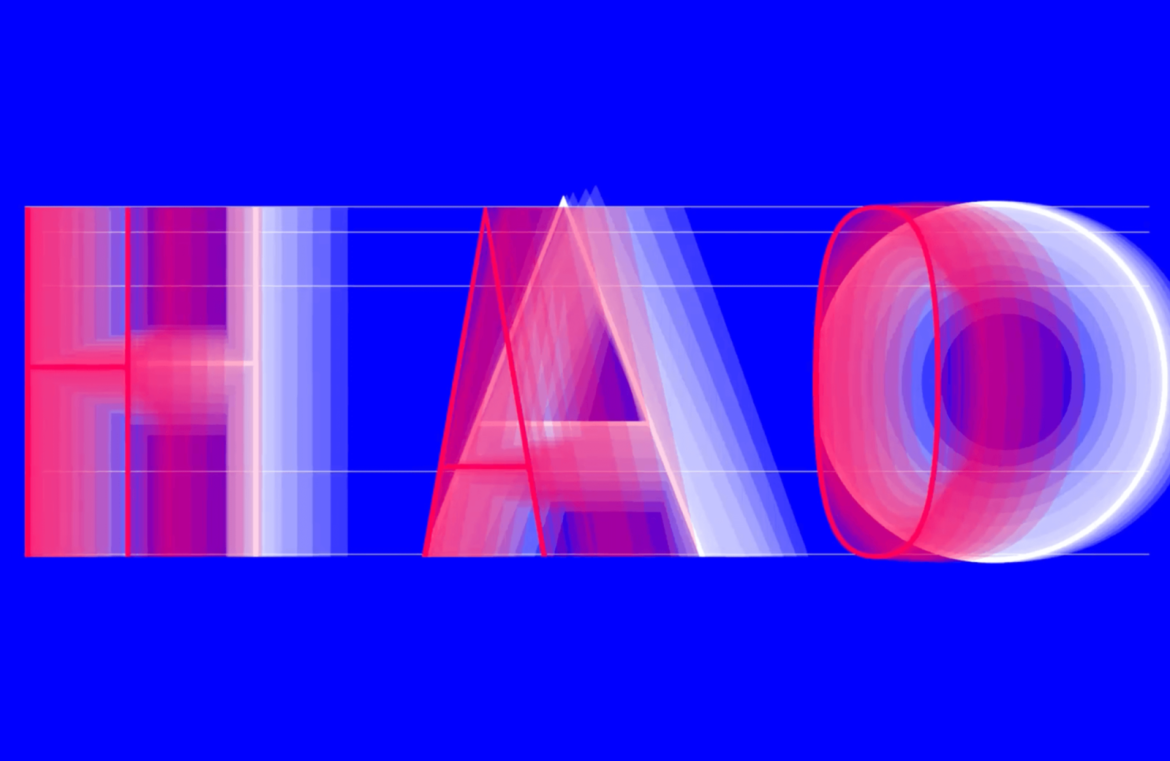
Embark on our new series, showcasing the most impressive typeface debuts from notable designers across the digital landscape.
For our first feature, we spotlight a curated selection of typeface introductions and developments from the past few months, with several offering complimentary weights. We encourage you to explore these fonts in your projects and share your creations with us!
Cedar
Cedar combines modern contours with traditional calligraphy, resulting in an angular serif that echoes the art of woodblock printing.
Tome Sans
Tome Sans exudes a professional feel across its extensive ten-weight range, topped with italics and enriched with distinctive ligatures seldom seen in sans-serifs.
Midnight Sans
Midnight Sans stands out as a bold sans-serif ideal for headlines, sporting a rounded counterpart and numerous typographic features as a refreshing twist on the classic Impact.
Nouvelle Grotesk
Nouvelle Grotesk serves as an indispensable sans-serif, honed for the digital age with thoughtful humanist design, stepping beyond the likes of Akzidenz Grotesk or Helvetica.
Glaser Babyfat
Glaser Babyfat, the inaugural font from the legendary Milton Glaser now released by P22, incorporates three additional styles derived from Glaser’s work.
Kristal
Kristal offers exceptional legibility in dense text blocks and flourishes with artistic ligatures and elegant italic options in smaller sizes.
Lightbox 21
Lightbox 21 reveals a reimagined Lightbox sans the golden ratio, optimizing readability without sacrificing its inherent charm.
Irregardless
Irregardless captures an organic, almost hand-lettered quality in a tall sans-serif with a full set of upper and lowercase characters, ideal for vintage projects.
Futura Now
Futura Now presents Monotype’s refined take on Paul Renner’s iconic Futura, retooled for digital environments and expanded language support, now also as a versatile variable font.
Granite
Granite conveys an Old West feel with its high-contrast strokes and includes a rustic stencil style that enhances its slab serif heritage.
Magnet
Magnet asserts its uniqueness with charismatic sans-serif flair, featuring an especially eye-catching lowercase ‘g’ and a condensed headline version perfect for impactful statements.
Bowdon
Bowdon exudes sophistication through the interplay of slim serifs and its contrasting strokes, available in varying widths from regular to narrow and wide.
Euclid Mono
Euclid Mono breaks the monospacing mold with uniquely extended shapes that lend a dynamic flow to text layouts.
Fave Set
Fave Set offers a suite of marker pen scripts, boasting a selection of ten distinct fonts that range from condensed to an extra casual flair.
Saison
Saison brings vivacious outlines and a distinctly editorial charm to the display font arena, perfect for branding or high-impact headlines.
Hernandez Niu
Hernandez Niu takes on a personality of its own with exaggerated ink traps that become more pronounced in heavier weights, enriching this slab serif’s character.
Gomme Sans
Gomme Sans is versatile across its dozen weights, exuding a contemporary edge with its extended form, ready for both heading and body text use.
Dobb
Dobb invites a lively and whimsical Arabic typeface experience, ideal for accompanying illustrations or establishing a graphic novel narrative.
Hatch
Hatch draws from vintage reverse stress typefaces, but incorporates modern touches and an appealing italic version, typifying ingenuity in slab serif design.
Sculpin
Sculpin asserts sharp and clear-cut edges reminiscent of chisel markings, offering five weights and matching italics in both traditional and variable font formats.